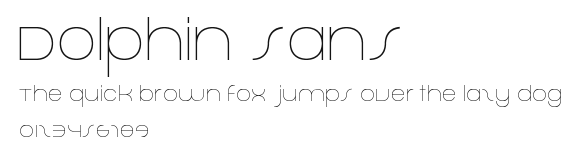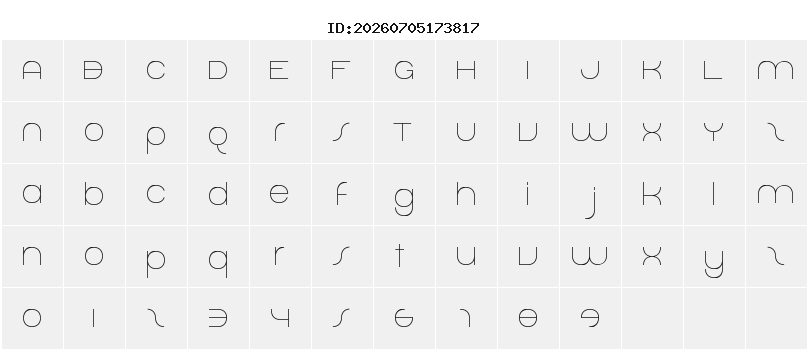
• Font Name: Dolphin Sans
• Full Font Name: Dolphin Sans Regular
• Copyright: Copyright Jamie Place 2013 ‚ÄúDolphin Sans‚Äù is based on ‚ÄúCircles Filtered‚Äù by ‚ÄúIsaiah Garcia‚Äù (http://fontstruct.com/fontstructors/isaiah_garcia)
• Designer: Jamie Place
• Description: ‚ÄúDolphin Sans‚Äù was built with FontStruct ‚ÄúDolphin Sans‚Äù is based on ‚ÄúCircles Filtered‚Äù by ‚ÄúIsaiah Garcia‚Äù (http://fontstruct.com/fontstructors/isaiah_garcia)
About Dolphin Sans.ttf
Dolphin Sans.ttf is a modern, elegant sans-serif font designed for ultimate readability and visual harmony. Perfect for branding, headlines, web design, and print materials.